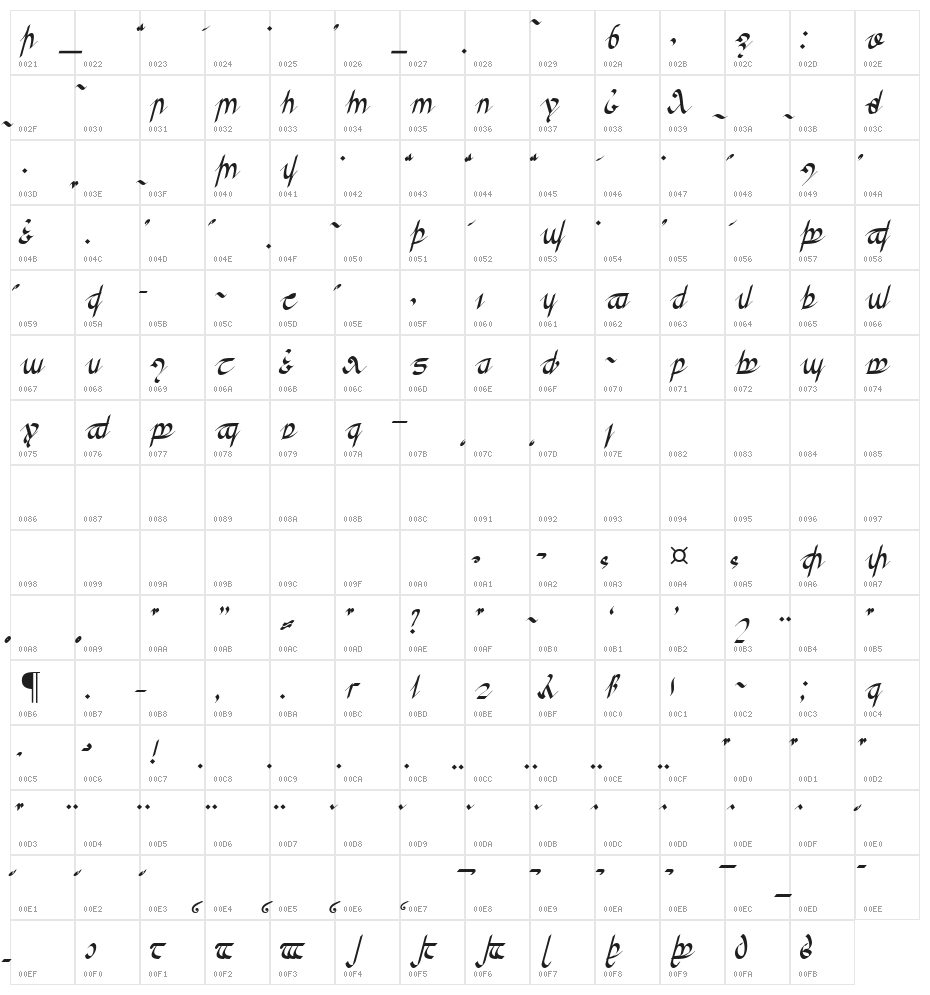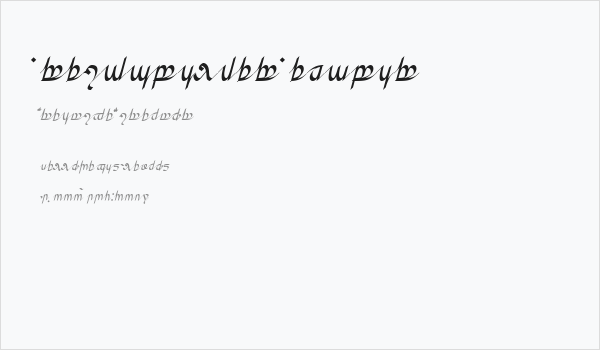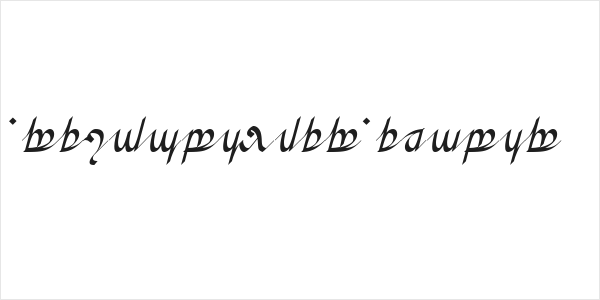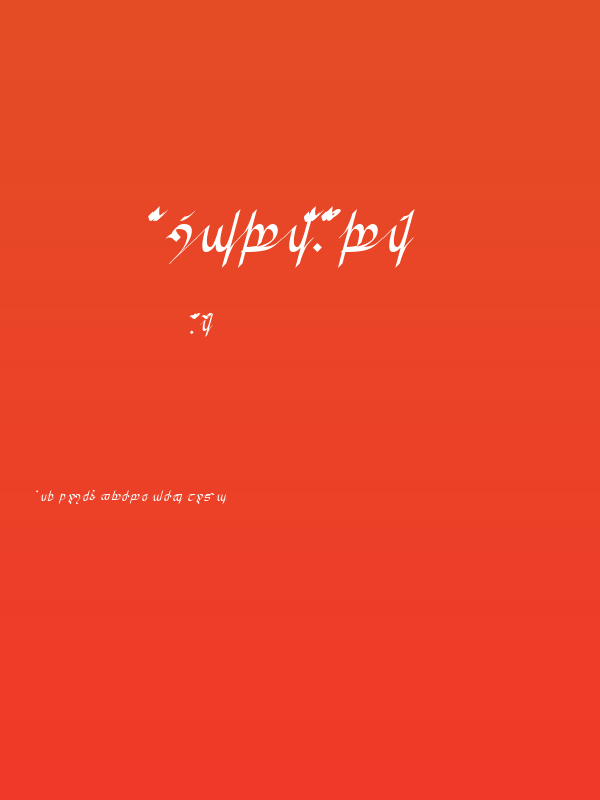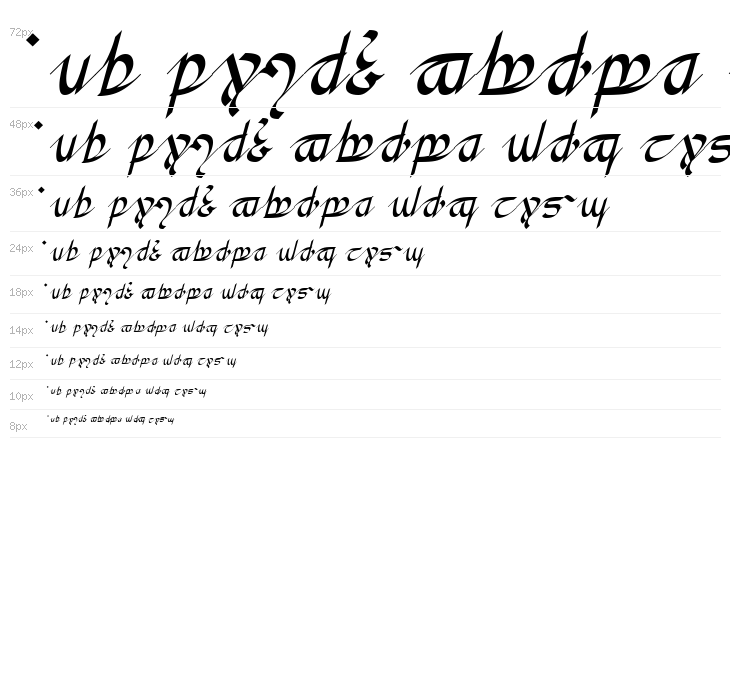
Greifswalder Tengwar Font
Greifswalder Tengwar Description
This script is an elegant and intricate writing system inspired by fantasy languages. It features flowing, interconnected characters with a calligraphic style, reminiscent of ancient scripts. The characters are adorned with delicate flourishes and curves, giving it a mystical and artistic appearance. The strokes vary in thickness, adding a dynamic and expressive quality to the text. This script is not a traditional font but rather a decorative representation of a fictional language, often used in fantasy literature and media.
Use CaseArtistic projects, themed designs, fantasy literature.
Proposed ProjectsIdeal for fantasy book covers, themed event invitations, or artistic projects requiring a mystical touch.